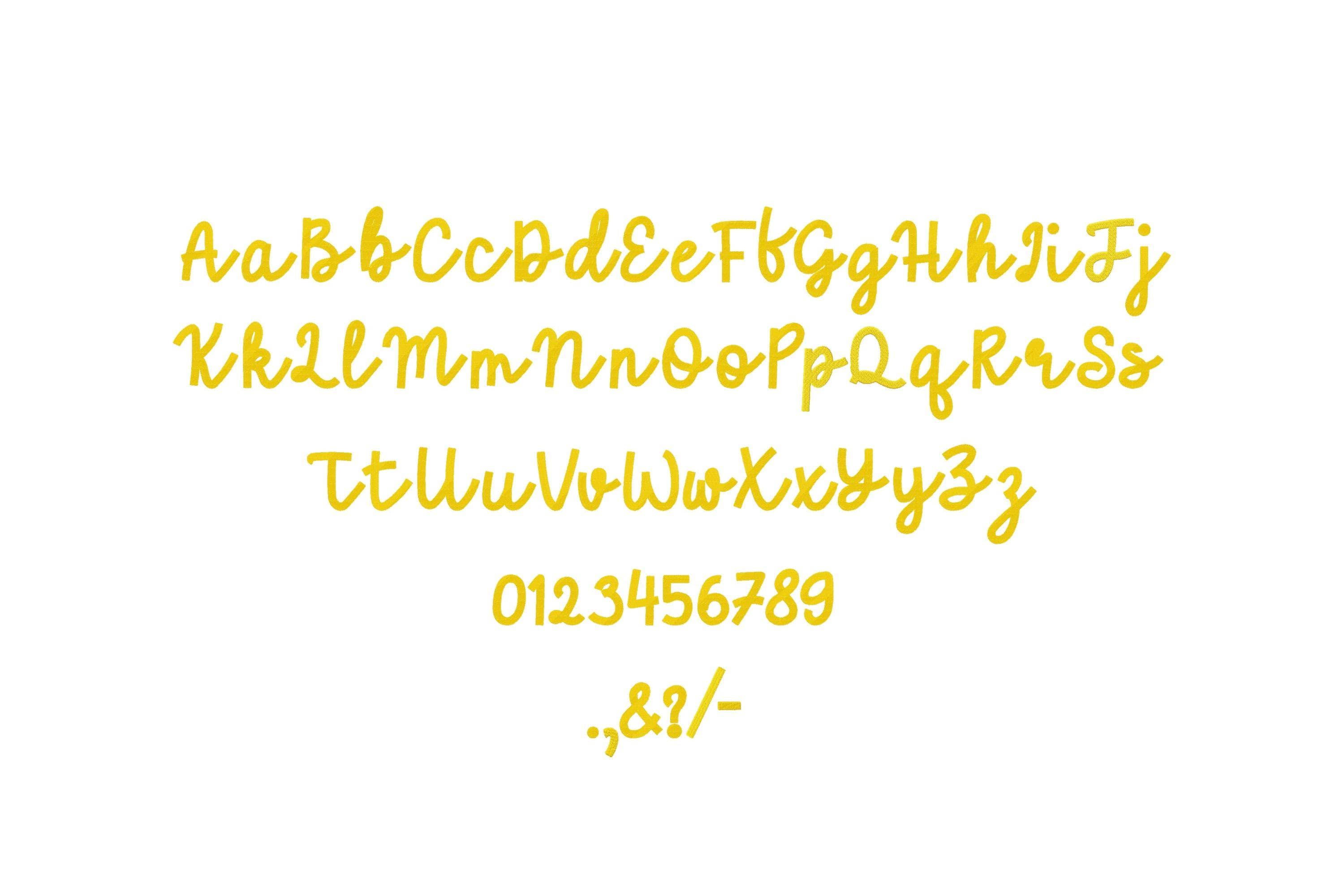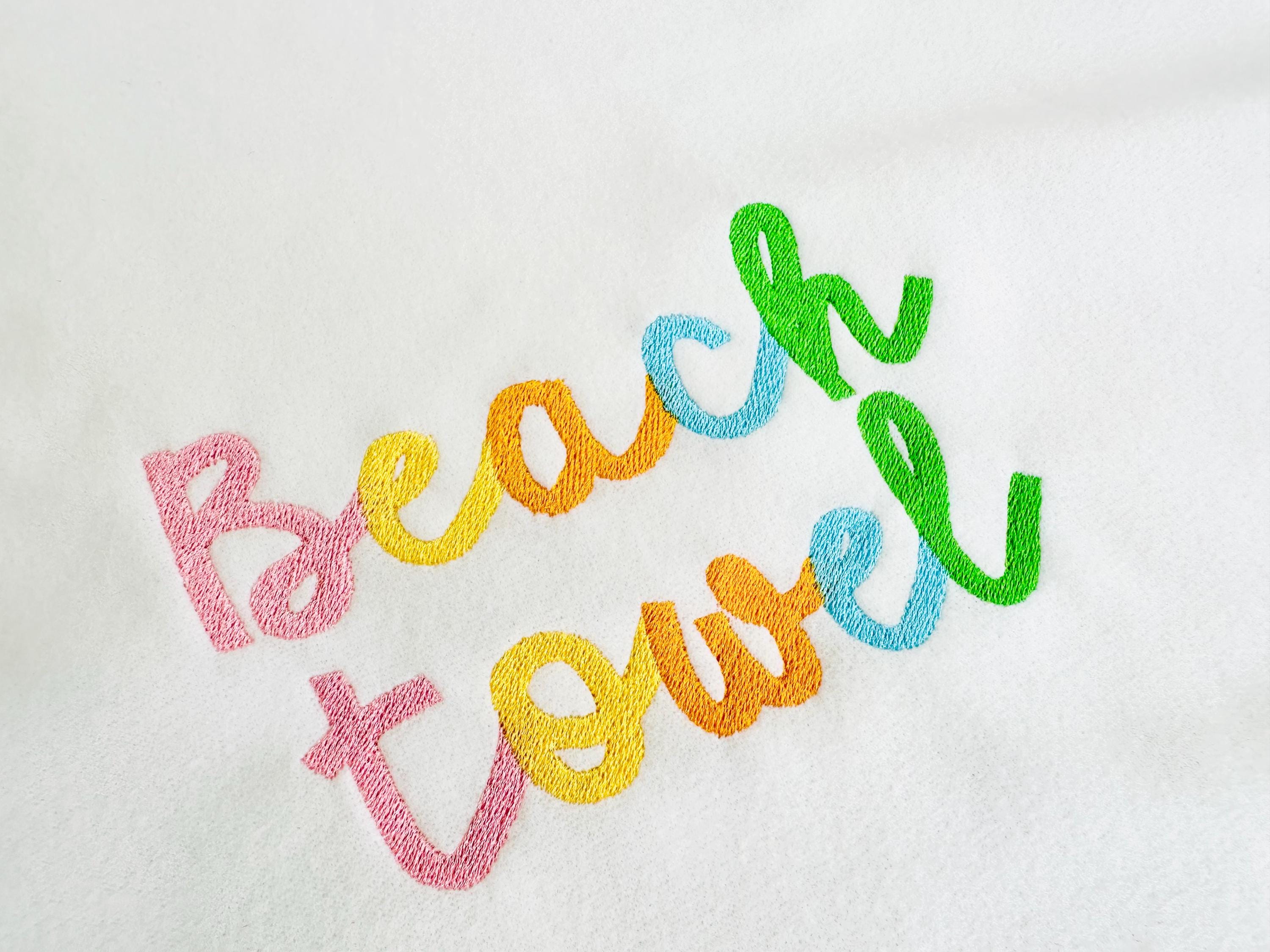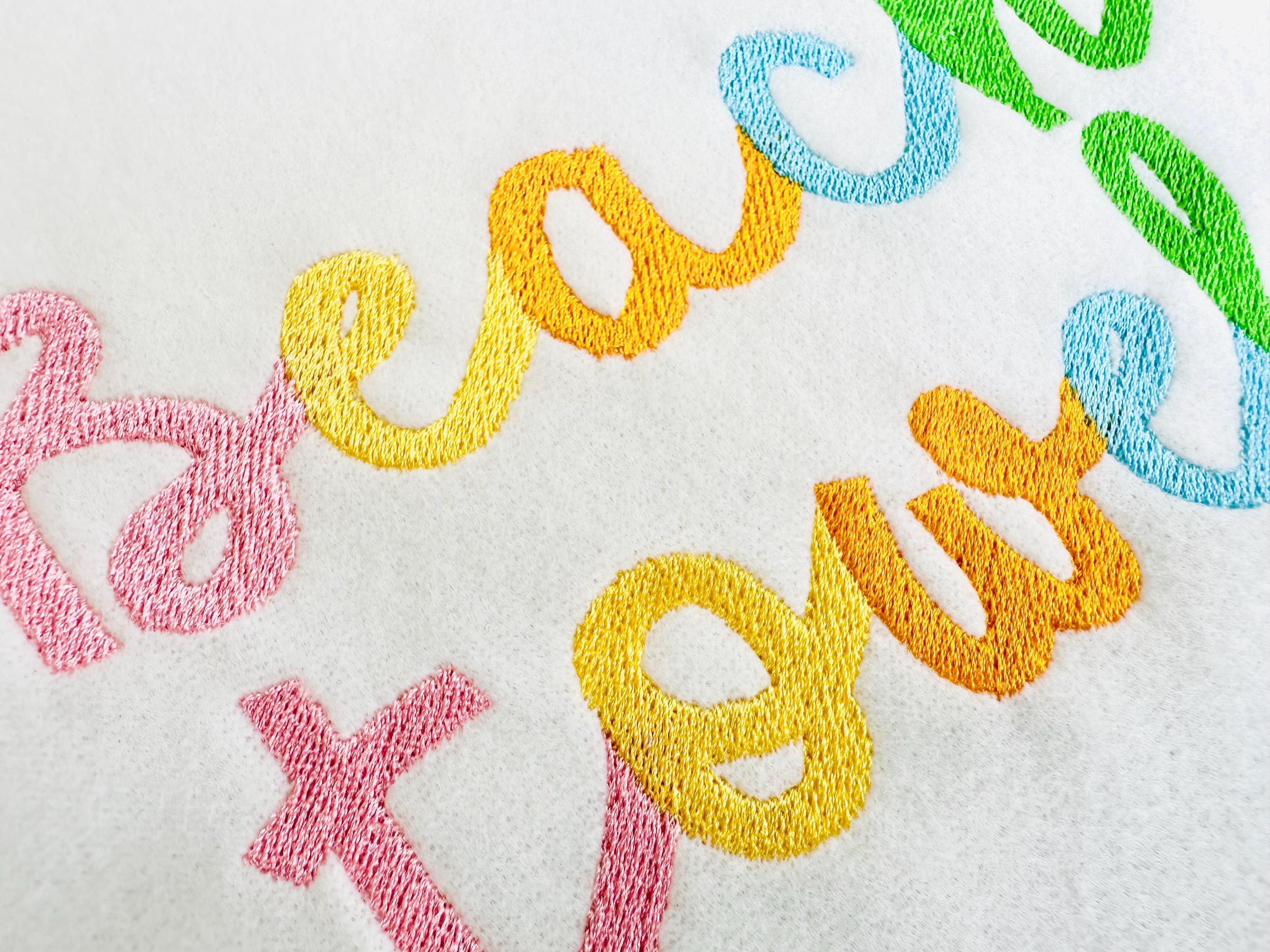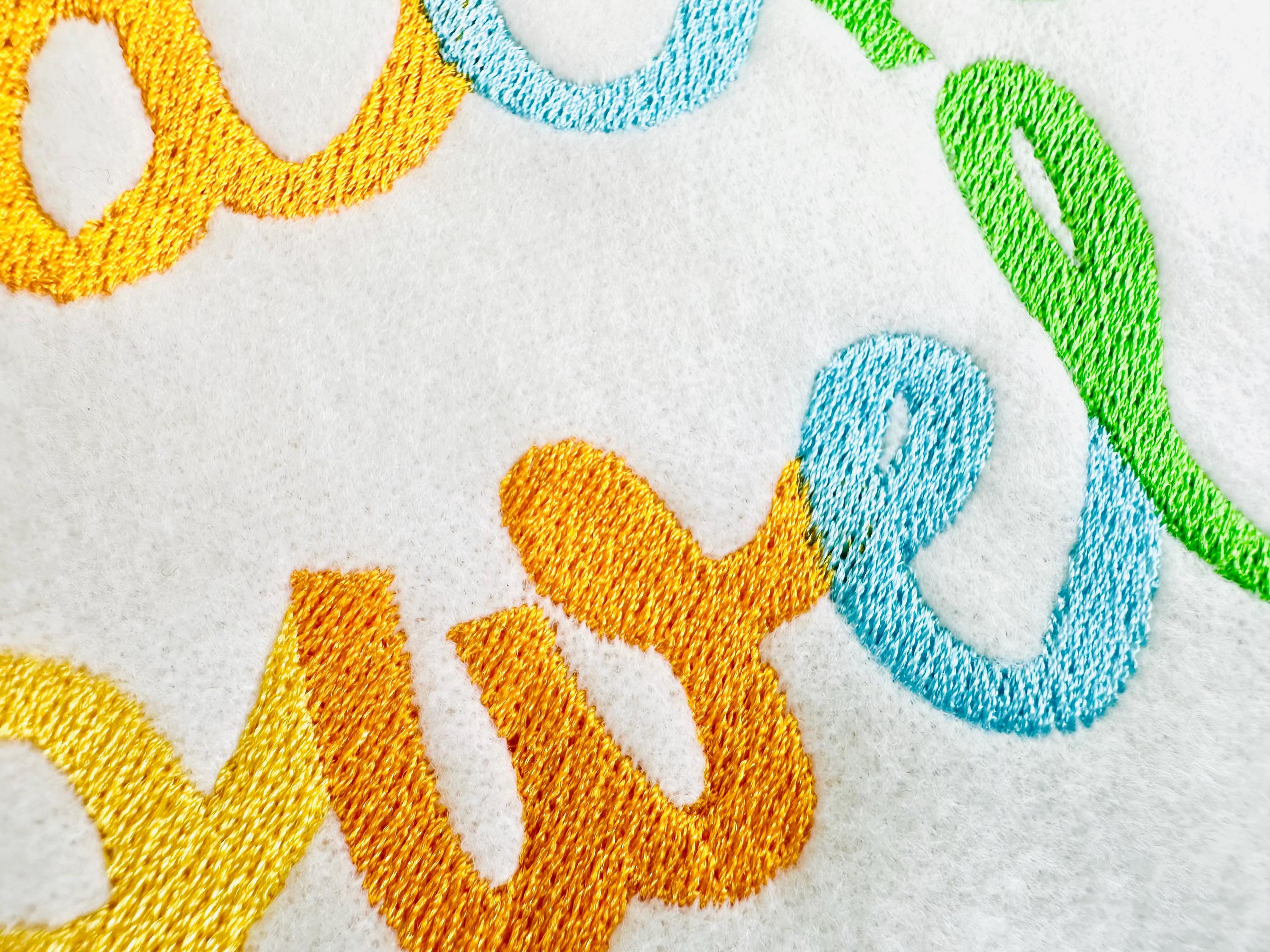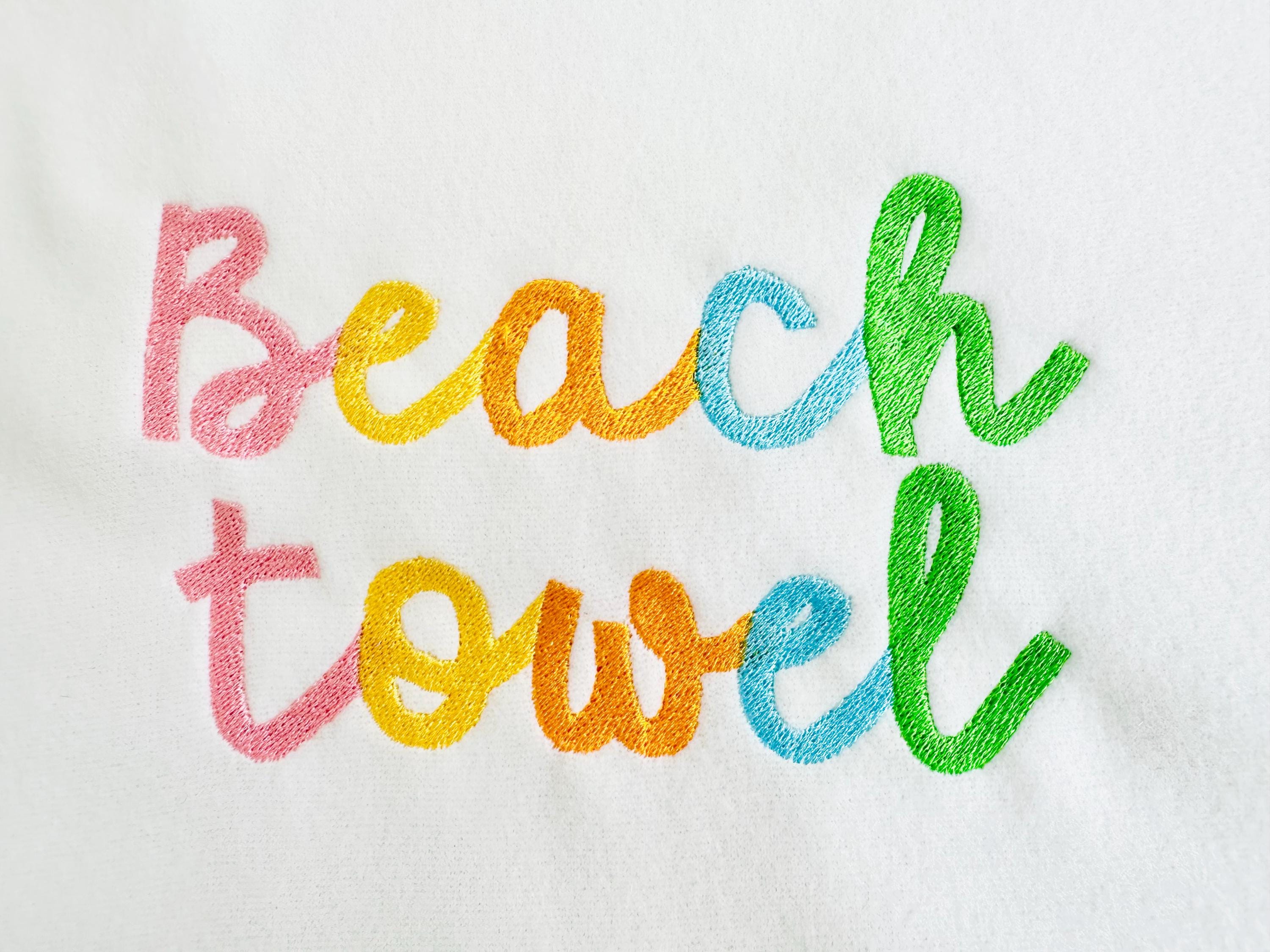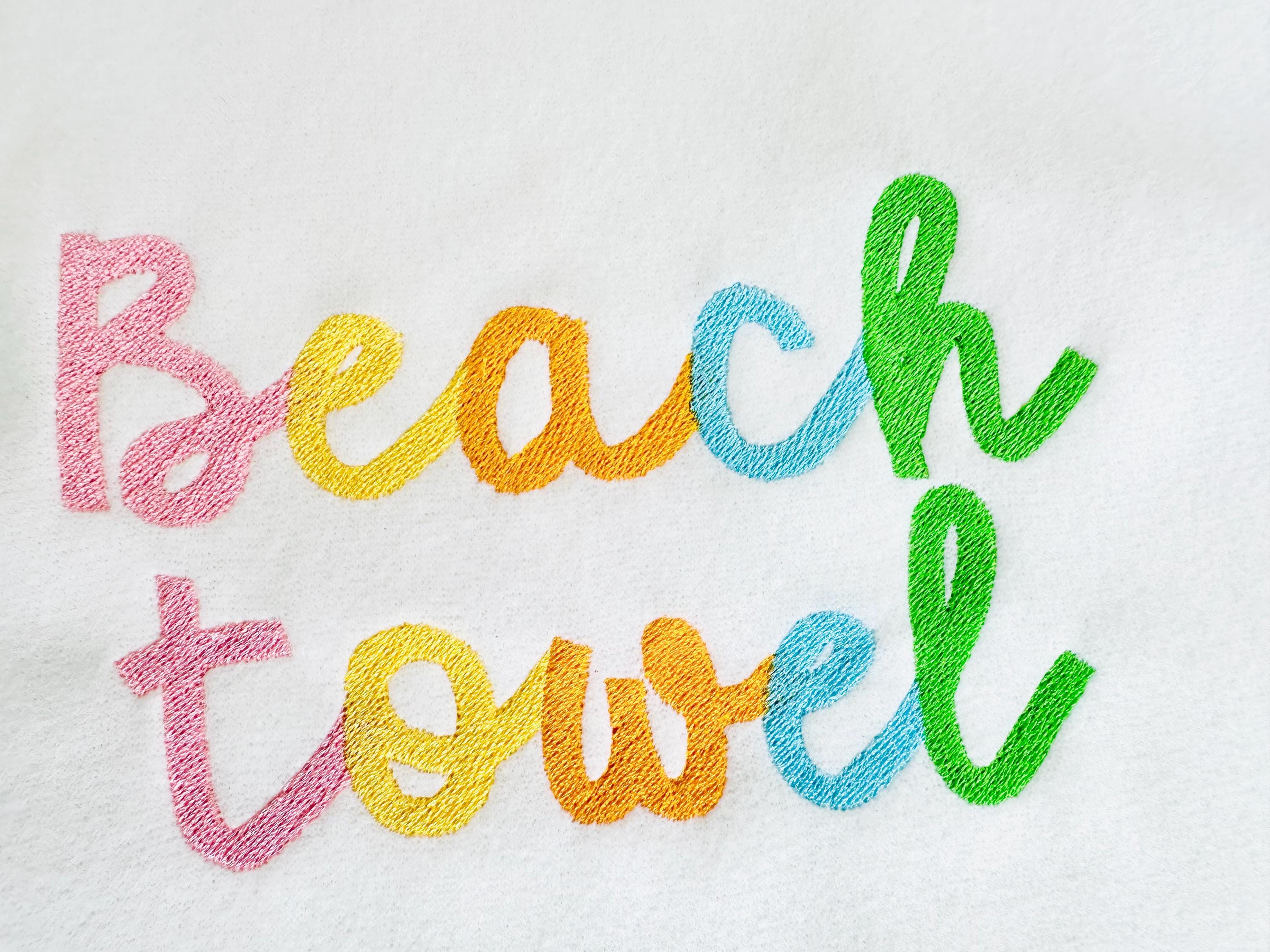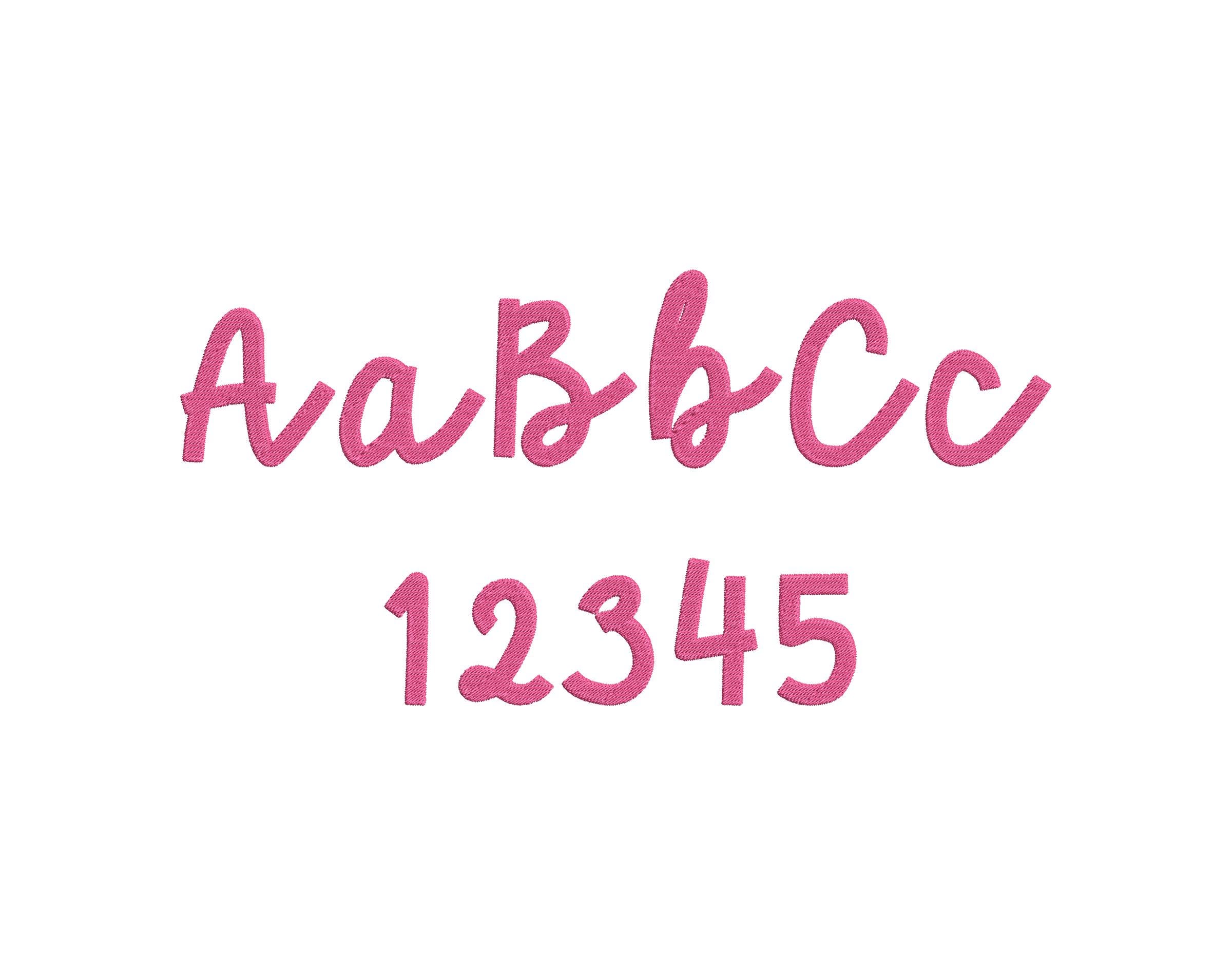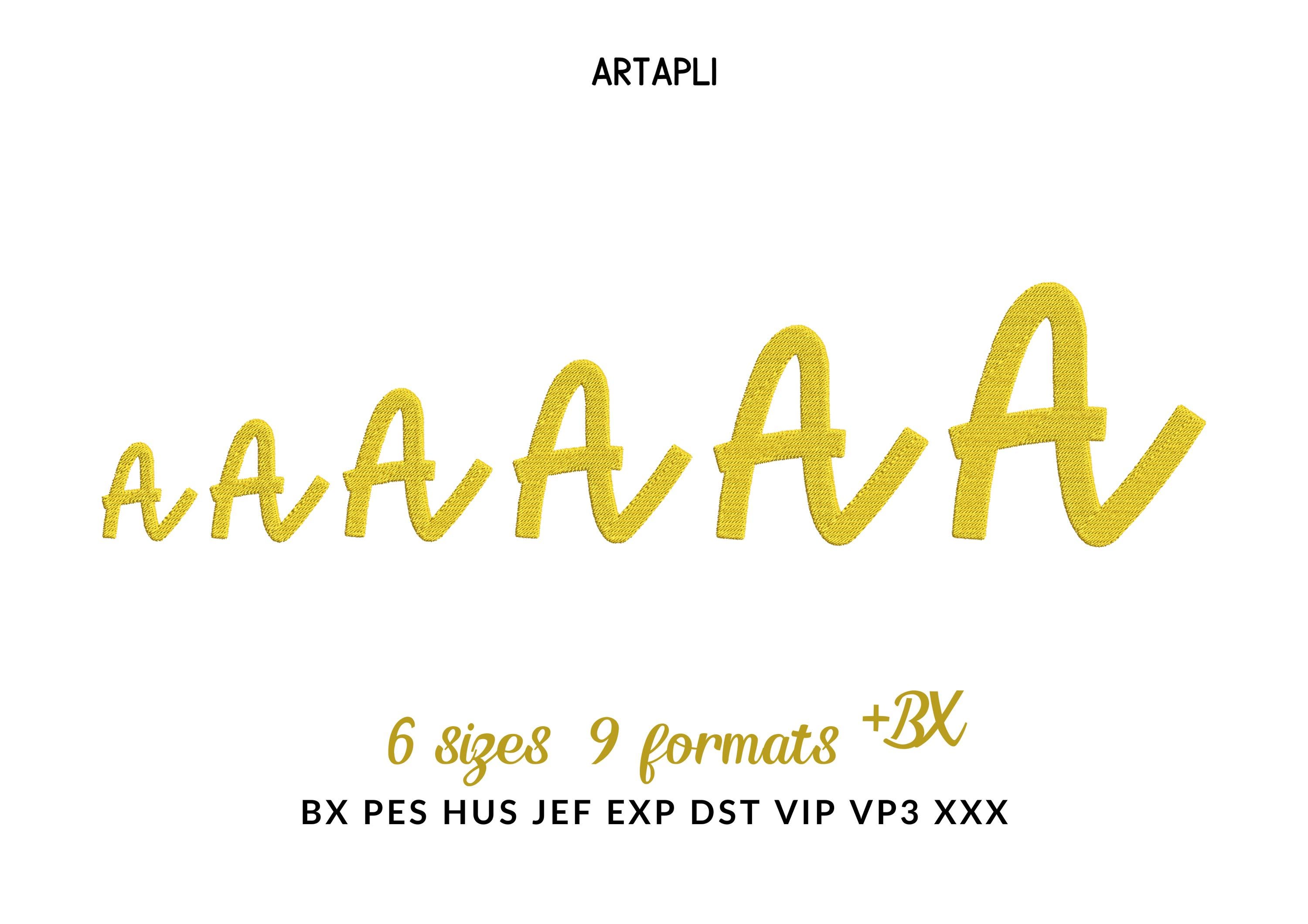
Fill stitch handwritten Font alphabet letters kids baby name monogram machine embroidery designs script bold font sizes 1.3 up to 3.5 inch
Whole alphabet A-Z uppercase and lowercase letters, numbers 0-9, and punctuation.